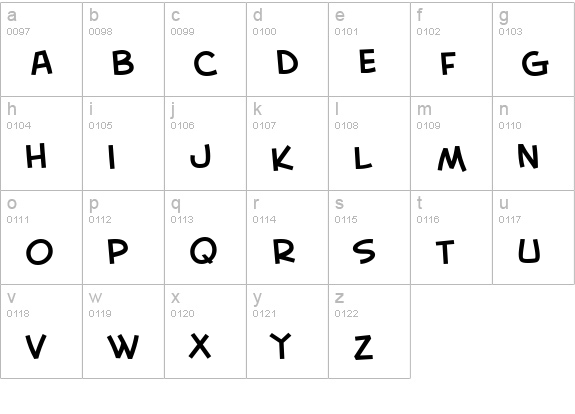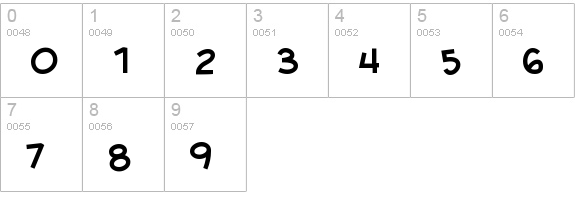
CreativeBlock BB Font Details
CreativeBlock BB is a stylish and versatile font that exudes creativity and artistic flair. With its unique blocky design and modern aesthetic, this font is perfect for adding a touch of personality to any project. Whether you're designing a logo, poster, or website, CreativeBlock BB will make your text stand out and grab attention. The best part? CreativeBlock BB is available for free download at FontsMarket.com. That's right, you can get your hands on this amazing font without spending a dime. So why wait? Go ahead and download CreativeBlock BB today and unleash your creativity with this stunning typeface.